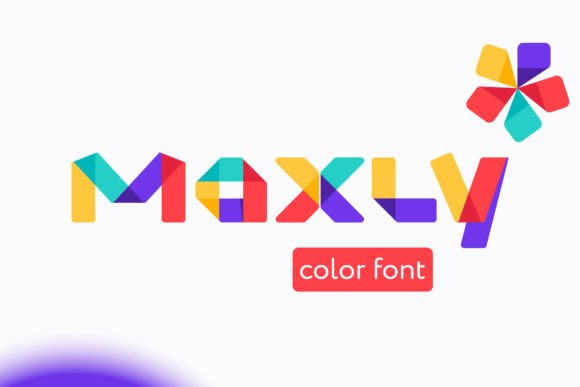
Adorn your digital creations with the vivacious hues and captivating contours of the Maxly Font, a treasure trove of chromatic artistry. This extraordinary font family, brought to life by the creative genius of kaer_cf, is not merely a collection of letters; it's an explosion of colors, a symphony of shades, a celebration of life's vibrant tapestry.
Immerse yourself in the boundless possibilities of Maxly Font, where every character dances with color, every word blossoms into a kaleidoscope of hues. Whether you're a seasoned graphic designer or a budding artist, a social media maven or a passionate crafter, Maxly Font is your gateway to a world of boundless creativity.
Picture this: a research paper that bursts with life, its words dancing in a vibrant symphony of colors. Maxly Font transforms dull, academic prose into a visual feast, captivating your readers and leaving them in awe of your ingenuity. Unleash your inner artist and let Maxly Font ignite your imagination.
Maxly Font's versatility extends far beyond the confines of research papers. Its vibrant strokes add a touch of whimsy to your digital designs, making them pop off the screen with an unmatched allure. Presentations take on a new life, their messages amplified by the font's vibrant hues. And greeting cards crafted with Maxly Font become treasured keepsakes, cherished for their unique charm and heartfelt sentiments.
So, embark on a chromatic journey with Maxly Font, a font that transcends the boundaries of ordinary typography. Let its vibrant hues ignite your imagination, transform your digital creations into masterpieces of color, and leave an indelible mark on the hearts and minds of your audience.